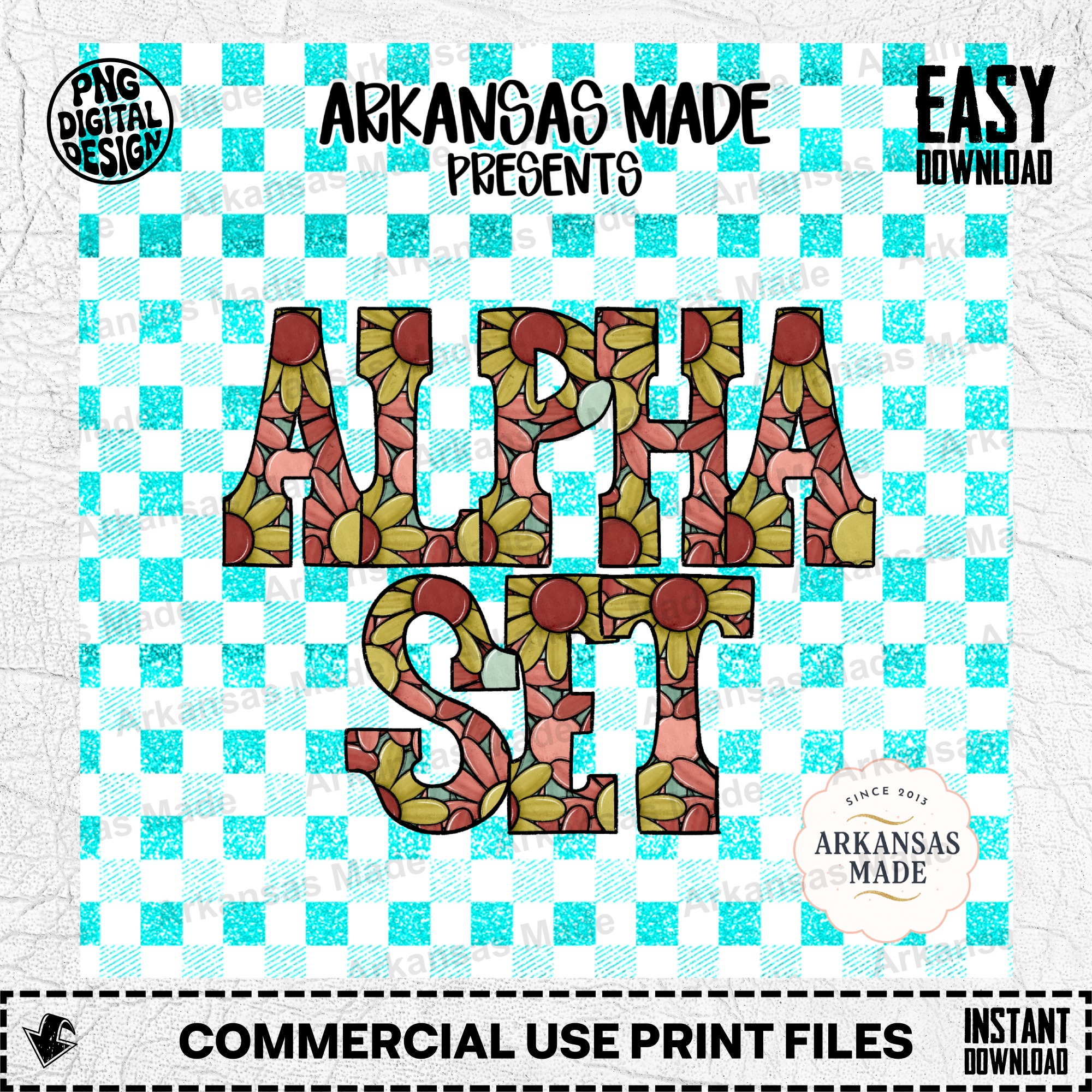
Floral Alphabet PNG Set, Boho Daisy Letters Sublimation Design, Retro Flower Font Digital Download for Crafting & Gifts
Get creative with this Floral Alphabet PNG Set! Perfect for sublimation designs, custom gifts, and retro flower font crafting. This Boho Daisy Letters bundle brings a unique vintage floral vibe to your projects. Ideal for DIY enthusiasts, crafters, and small business owners looking to personalize items. Create custom t-shirts, mugs, nursery decor, or unique invitations with this versatile digital download.